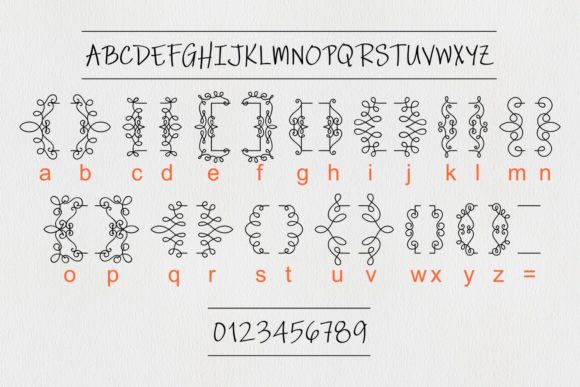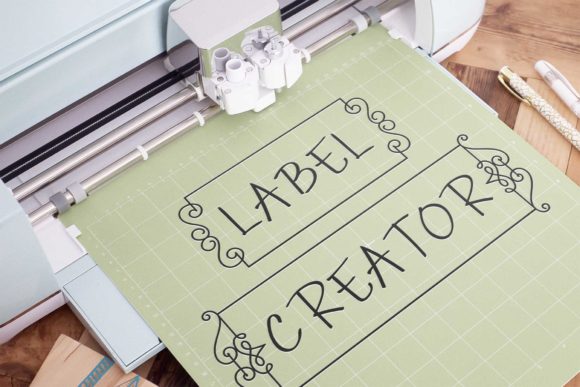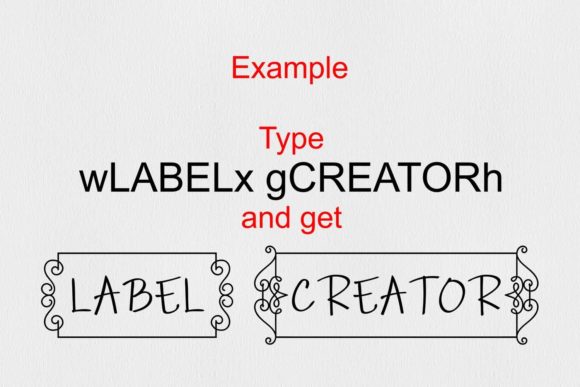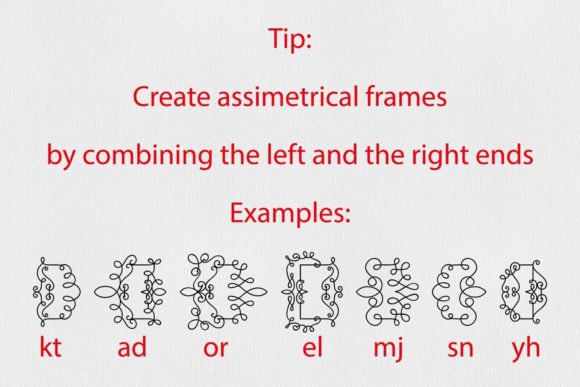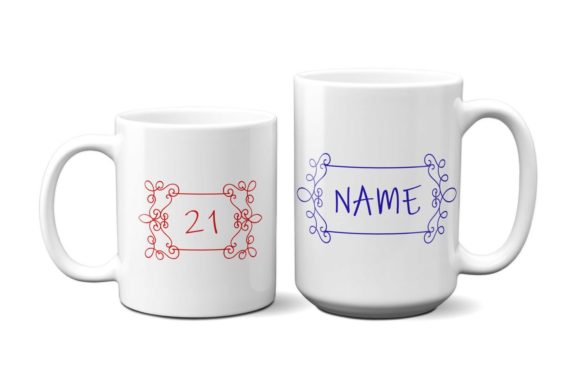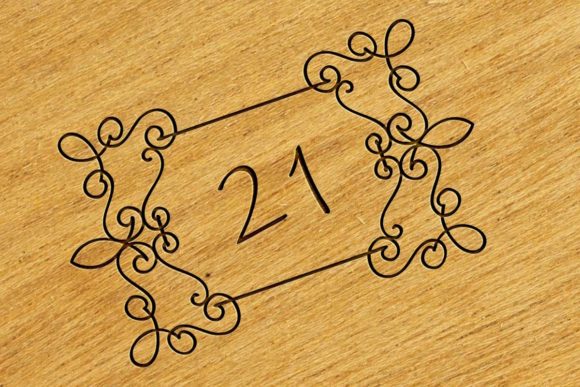
Introduction to Label Creator Font
Have you ever been working on a creative project, pouring your heart and soul into every detail, only to be held back by a lack of the perfect font? That’s exactly what happened to me when I was designing my sister’s wedding invitations. I wanted something elegant, yet distinct, and that’s when I stumbled upon the Label Creator Font. Its ravishing style and high-quality design made my project truly stand out.
As a designer, you know how valuable it is to have a reliable design resource like the Label Creator Font. With its transparent background and free download option, you can easily incorporate it into your creative project, whether it’s a beautiful stationery art, eye-catching social media post, or stunning wedding invitation. In this article, we’ll delve into the world of the Label Creator Font and explore its many uses and benefits.
Key Features of Label Creator Font
- High-quality design resource ideal for creative projects, including labels, stickers, and packaging.
- Comes with a transparent background, making it easy to customize and overlay on various backgrounds.
- Features a unique and stylish design, perfect for adding a touch of elegance to your creative project.
Honest Review: Label Creator Font
I recently came across the Label Creator Font, and I must say, it’s a great addition to my design resource library. With a free download option, it’s definitely worth checking out if you’re working on a creative project that requires a high-quality font.
What works well: ✨ The font is incredibly versatile and comes with a range of styles to suit different design needs. It’s perfect for creating labels, signs, and other graphics that require a clear and easy-to-read font. The transparent background option is also a bonus, making it easy to overlay text on top of images or other design elements.
What could be improved: ⚠️ While the font is generally of high quality, I did notice some minor inconsistencies in the spacing between characters. This can be a bit of a nuisance if you’re working on a project that requires precise typography. Additionally, the font doesn’t come with as many language support options as I would have liked.
Overall, the Label Creator Font is a solid choice for designers looking for a reliable and easy-to-use font. With its range of styles and transparent background option, it’s definitely worth considering for your next creative project.
Label Creator Font: A High-Quality Design Resource
Common Use Cases for Label Creator Font
The Label Creator Font is ideal for creating custom labels, stickers, and other design elements for various industries, including food, beverage, and packaging.